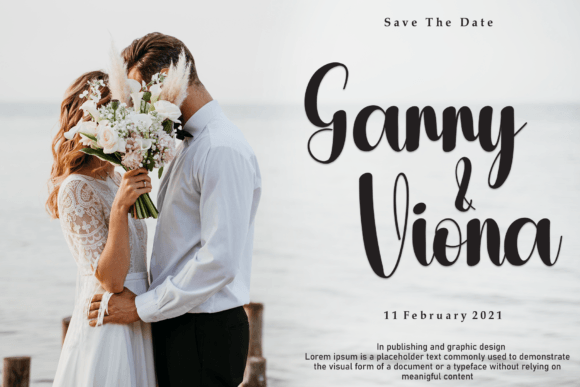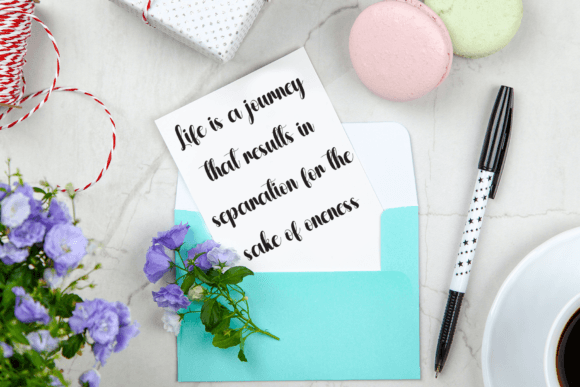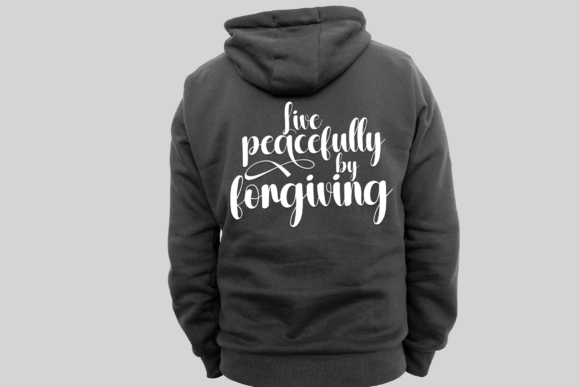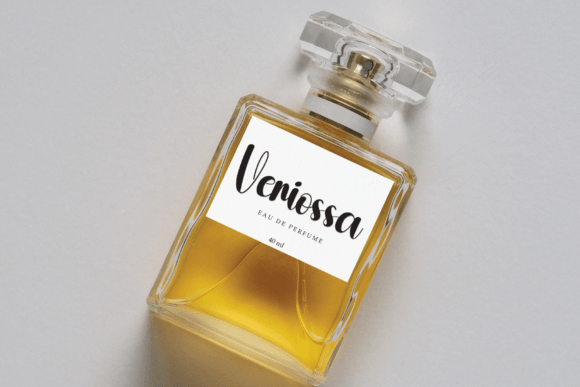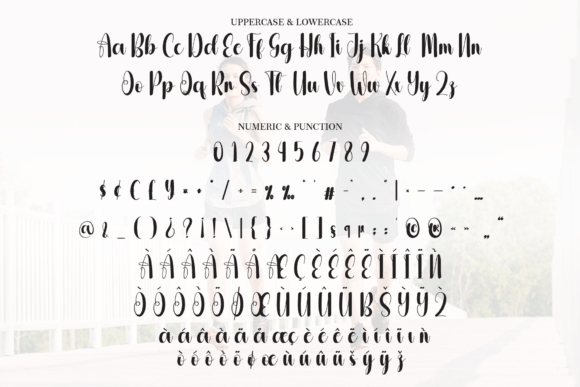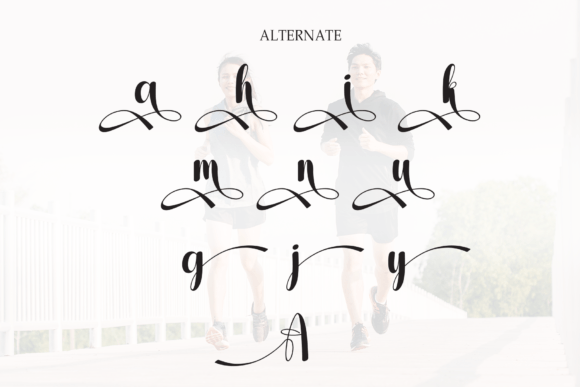
Introducing Activity Font: The Sweet and Friendly Handwritten Font for Your Creative Projects
Are you looking for a font that can add a personal touch to your designs? Do you want to create beautiful wedding invitations, cards, or other creative projects that exude warmth and friendliness? Look no further than Activity Font, a lovely handwritten font that’s perfect for adding a sweet and casual touch to your work.
What is Activity Font?
Activity Font is a beautiful handwritten font that’s designed to bring a sense of freshness and casualness to your designs. With its smooth and flowing lines, this font is ideal for creating a wide range of projects, from wedding invitations and cards to posters, flyers, and more.
Key Features of Activity Font
- Handwritten style: Activity Font has a lovely handwritten style that’s perfect for adding a personal touch to your designs.
- Sweet and friendly: This font has a warm and friendly feel that’s sure to make your designs stand out.
- Fresh and casual: Activity Font is perfect for creating designs that need a fresh and casual touch.
- Easy to read: Despite its handwritten style, Activity Font is easy to read and understand, making it perfect for body text and headings.
Uses of Activity Font
Activity Font is a versatile font that can be used for a wide range of projects, including:
- Wedding invitations: This font is perfect for creating beautiful wedding invitations that exude warmth and romance.
- Cards: Activity Font is great for creating greeting cards, birthday cards, and other types of cards that need a personal touch.
- Posters and flyers: This font is also perfect for creating posters and flyers that need a fresh and casual touch.
- Social media graphics: Activity Font can be used to create social media graphics that are engaging and easy to read.
Why Choose Activity Font?
There are many reasons why you should choose Activity Font for your next project. Here are a few:
- Unique style: Activity Font has a unique style that’s sure to make your designs stand out.
- High-quality: Activity Font is a high-quality font that’s designed to produce crisp and clear text.
Tips for Using Activity Font
Here are a few tips for using Activity Font in your designs:
- Use it for headings and body text: Activity Font is perfect for both headings and body text, making it a great choice for a wide range of projects.
- Experiment with different colors: This font looks great in a wide range of colors, so don’t be afraid to experiment and find the perfect color for your design.
- Pair it with other fonts: Activity Font can be paired with other fonts to create a unique and interesting look.
Activity Font is a beautiful handwritten font that’s perfect for adding a sweet and friendly touch to your designs. With its fresh and casual style, this font is ideal for creating a wide range of projects, from wedding invitations and cards to posters and flyers. Whether you’re a designer or crafter, Activity Font is a great choice for anyone looking to add a personal touch to their work.